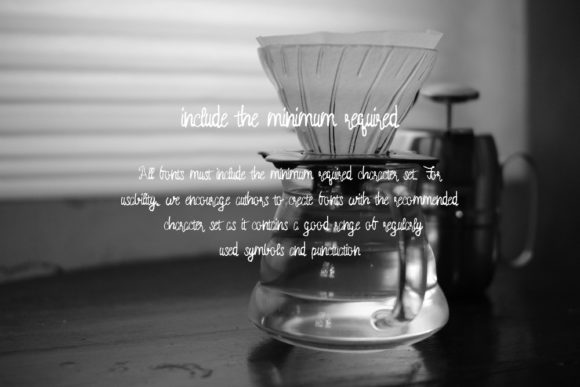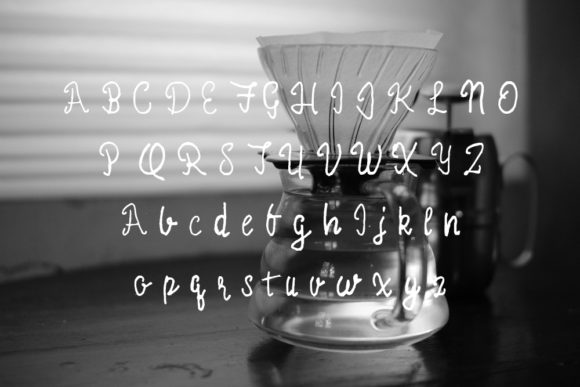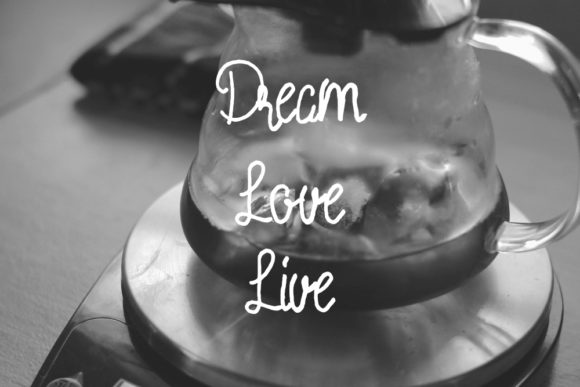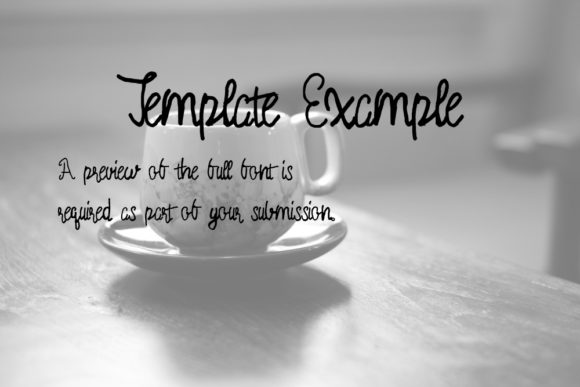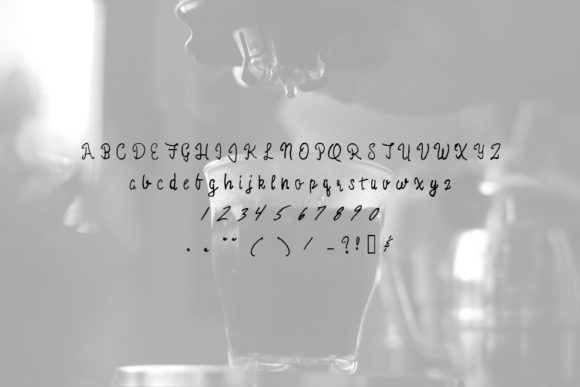
Introducing Allina Light Font: The Ultimate Choice for Creative Expression
Are you a designer, crafty enthusiast, or simply someone who loves to express themselves through creative projects? Look no further than Allina Light Font, a charming handwritten font that embodies fun, quirkiness, and authenticity. With Allina Light, you can turn any idea into a true standout that captures attention and leaves a lasting impression.
The Allina Light Difference
Allina Light Font is more than just a typography style – it’s an experience. This enchanting font is designed to add a touch of personality to your projects, making them feel more approachable, friendly, and engaging. Whether you’re working on a branding project, crafting a social media post, or creating a handmade card, Allina Light is the perfect choice for anyone looking to inject a dose of whimsy and creativity into their work.
Key Features of Allina Light Font
- Handwritten with love: Allina Light is a carefully crafted handwritten font that exudes warmth and personality.
- Fun and quirky: This font is perfect for projects that require a playful and lighthearted touch.
- Authentic and unique: Allina Light is designed to help you stand out from the crowd and express your individuality.
- Highly versatile: Use Allina Light for a wide range of projects, from digital designs to handmade crafts.
What Makes Allina Light Font So Special?
Allina Light Font is special because it’s more than just a typography style – it’s a way to connect with your audience on a deeper level. This font is designed to evoke emotions, spark imagination, and inspire creativity. With Allina Light, you can:
- Add a personal touch: Make your projects feel more personal and relatable with Allina Light’s unique, handwritten style.
- Stand out from the crowd: Use Allina Light to differentiate yourself from others and make your projects more memorable.
- Convey your message with personality: This font is perfect for projects that require a friendly, approachable tone.
How to Use Allina Light Font in Your Projects
Allina Light Font is incredibly versatile and can be used in a wide range of projects, including:
- Branding and marketing materials: Use Allina Light to create eye-catching logos, business cards, and brochures.
- Social media graphics: Add a touch of personality to your social media posts with Allina Light.
- Handmade crafts: Use Allina Light to create unique and personalized handmade cards, gift tags, and other crafts.
- Digital designs: Incorporate Allina Light into your digital designs, such as website headers, email newsletters, and more.
Get Ready to Fall in Love with Allina Light Font
If you’re looking for a font that embodies fun, quirkiness, and authenticity, look no further than Allina Light. With its enchanting handwritten style and highly versatile design, Allina Light is the perfect choice for designers, crafty enthusiasts, and anyone looking to add a touch of personality to their projects. So why wait? Discover the magic of Allina Light Font today and start creating truly standout projects that capture attention and inspire creativity.
| Font Name | Allina Light Font |
| Author | Gblack Id |
In conclusion, Allina Light Font is a unique and charming handwritten font that’s perfect for anyone looking to add a touch of personality to their projects. With its fun, quirky, and authentic design, Allina Light is sure to turn any creative idea into a true standout. So whether you’re a designer, crafty enthusiast, or simply someone who loves to express themselves through creative projects, Allina Light Font is the ultimate choice for creative expression.